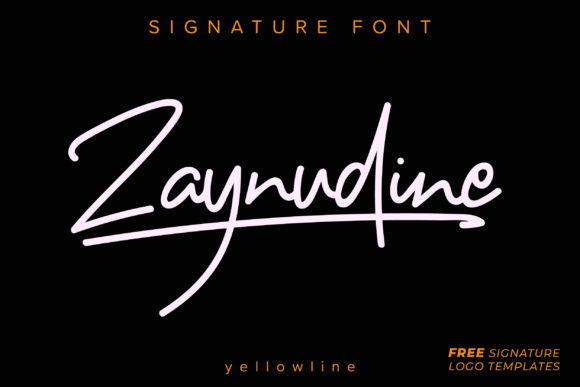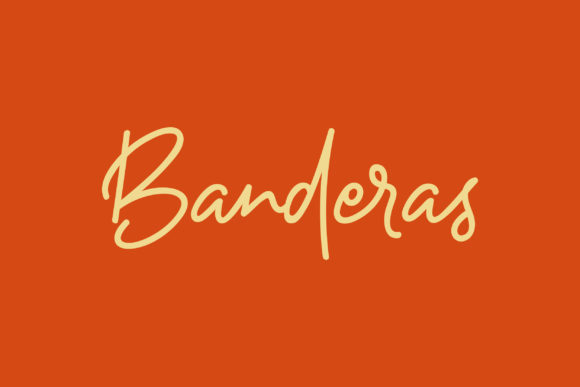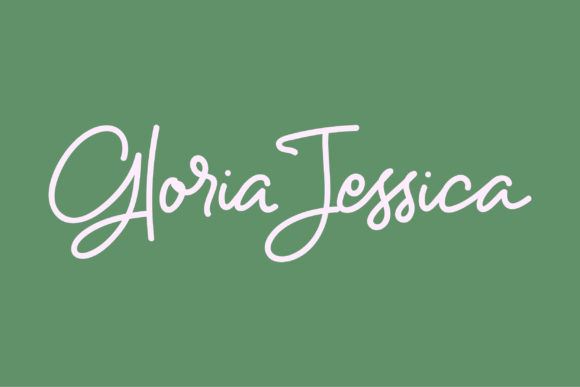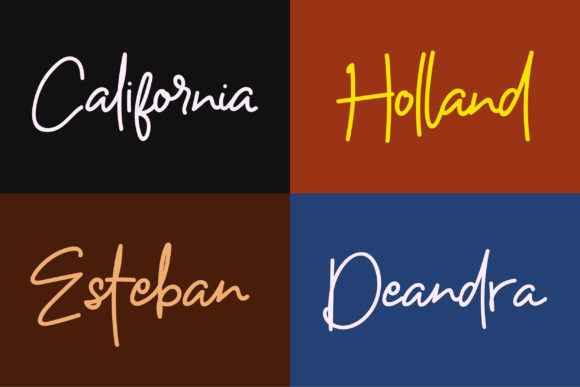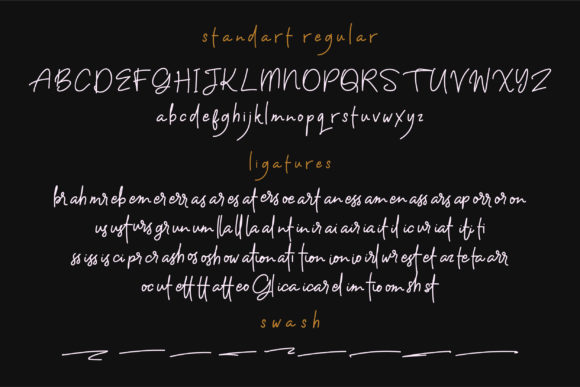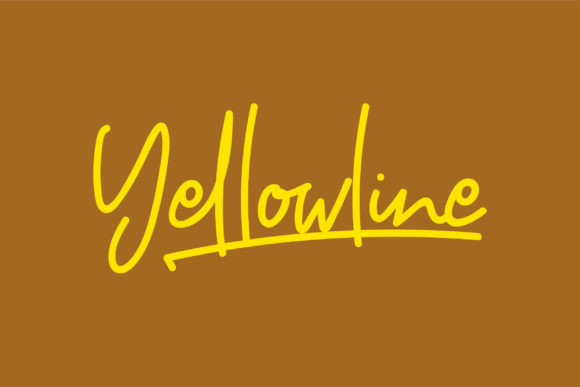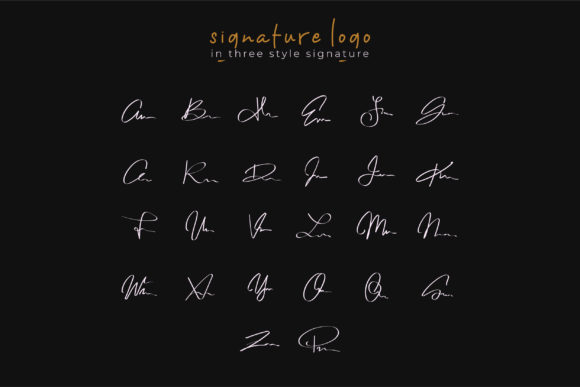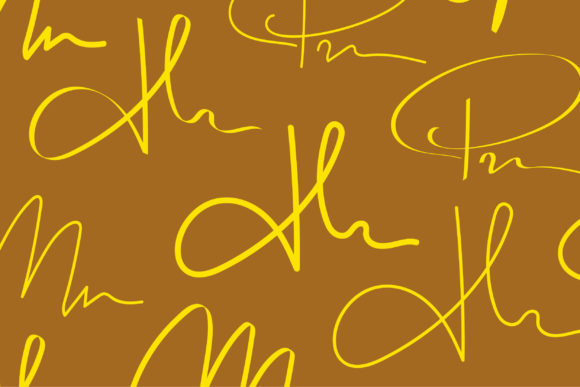
Zaynudine Font
About Zaynudine Font
Zaynudine is a simple, yet elegant font. With its classic elements, it makes the perfect choice for any design ideas that require an authentic and modern feel.